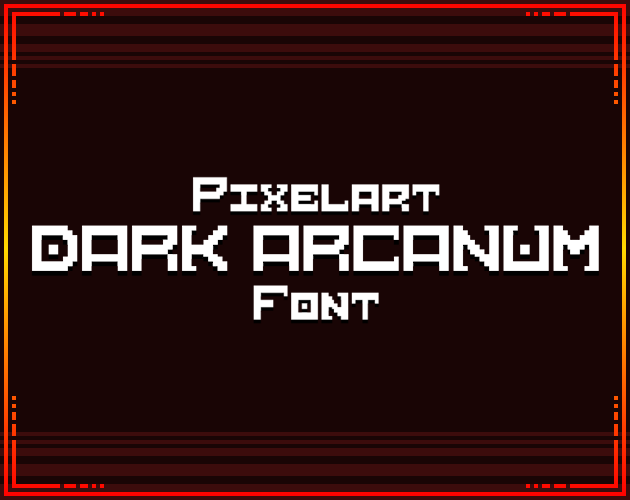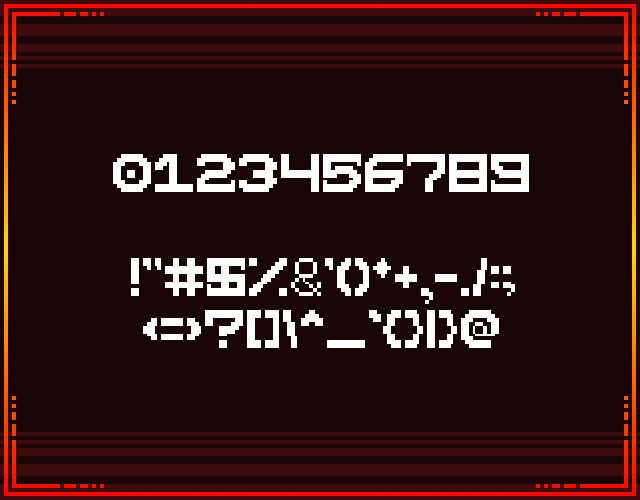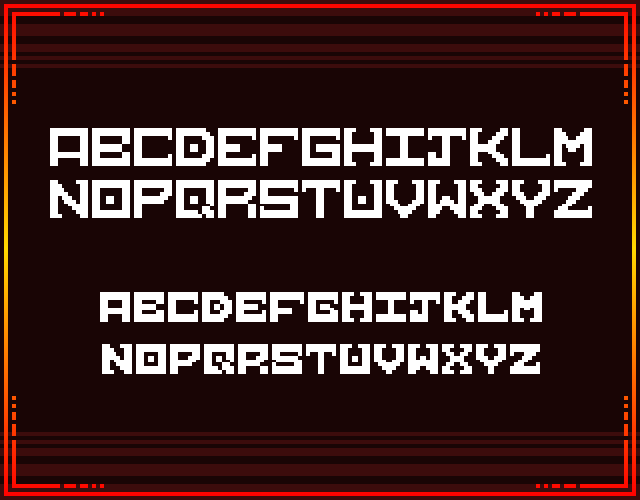
Dark Arcanum Pixel Font
Dark Arcanum [10x10 Font]
Pixelart font specifically for game developers seeking a new, nostalgic touch in their creations. Bring back that sense of retro gaming while offering nice readability and versatility. Whether used for dialogues, UI elements, or captions, this font will elevate your gaming experiences with its distinctive style and character.